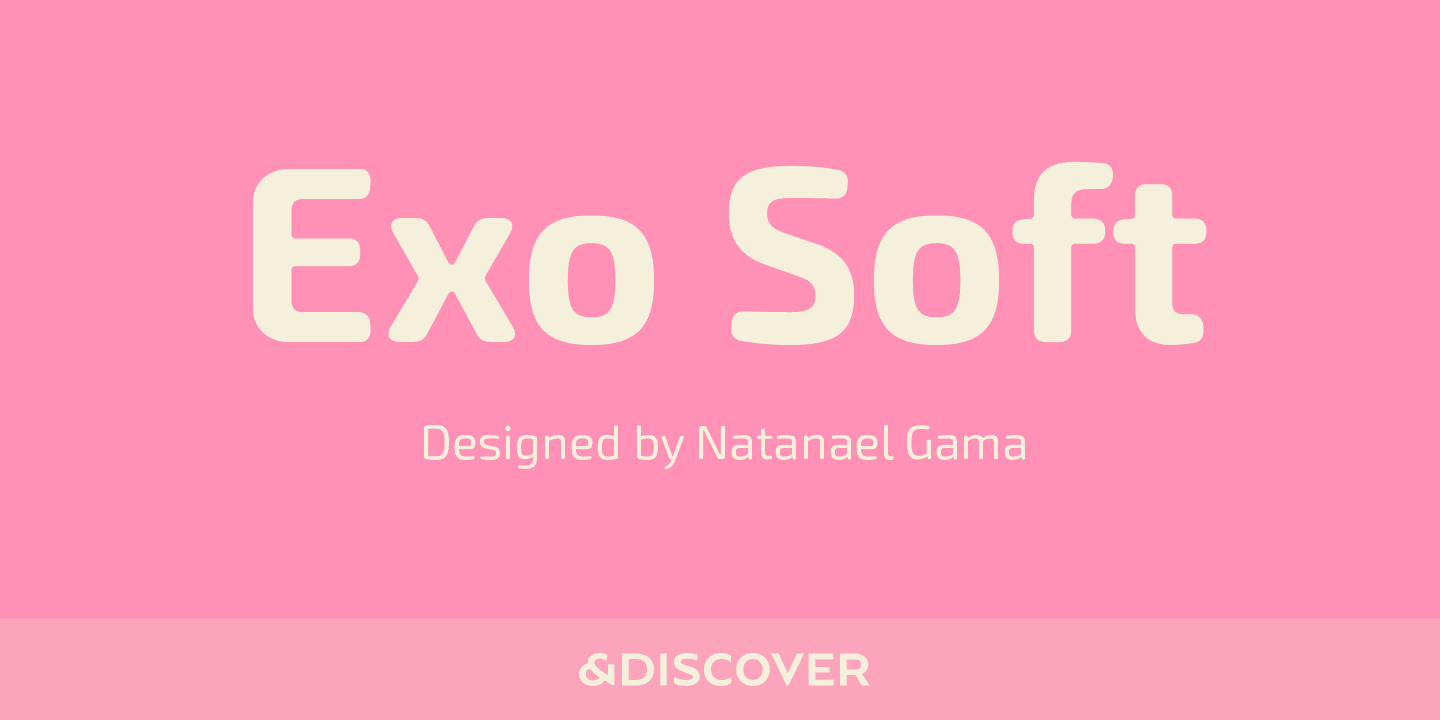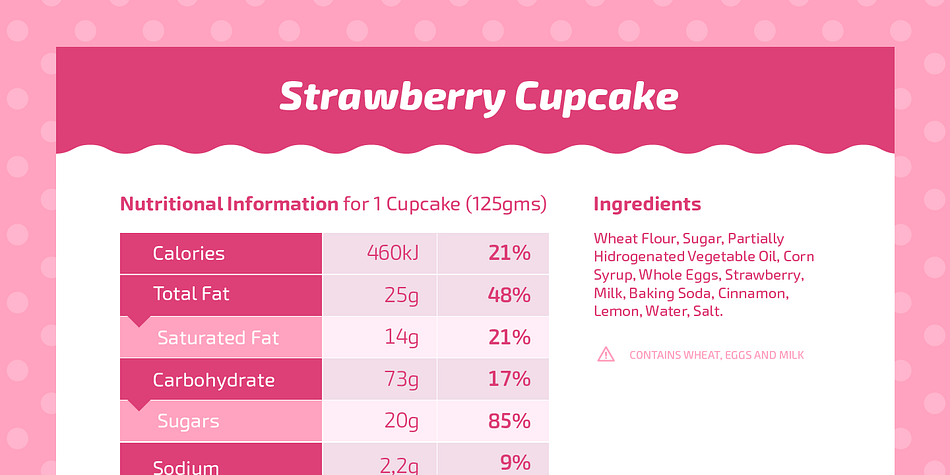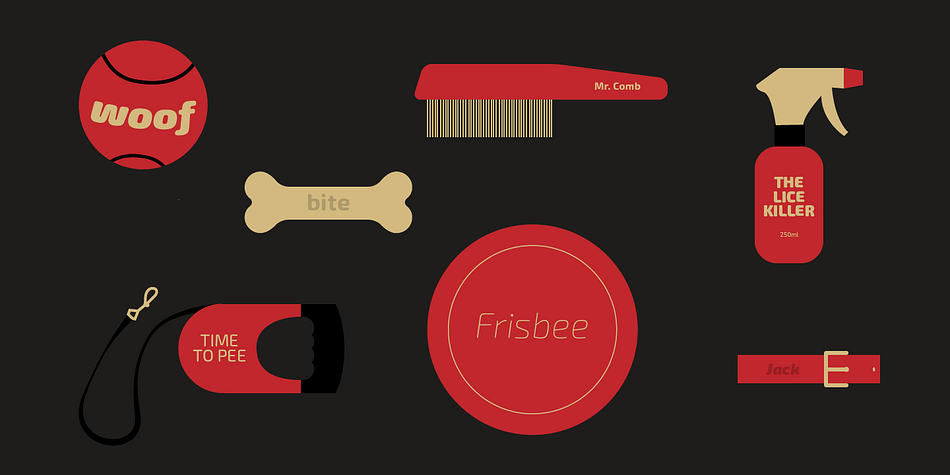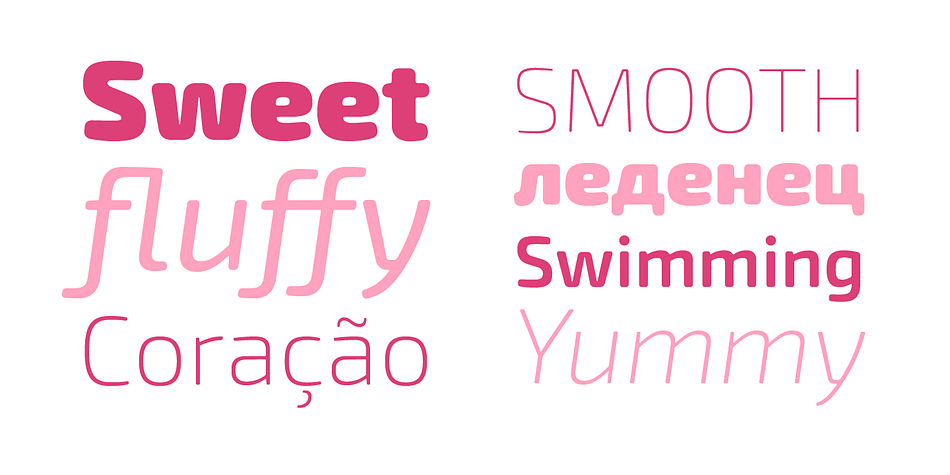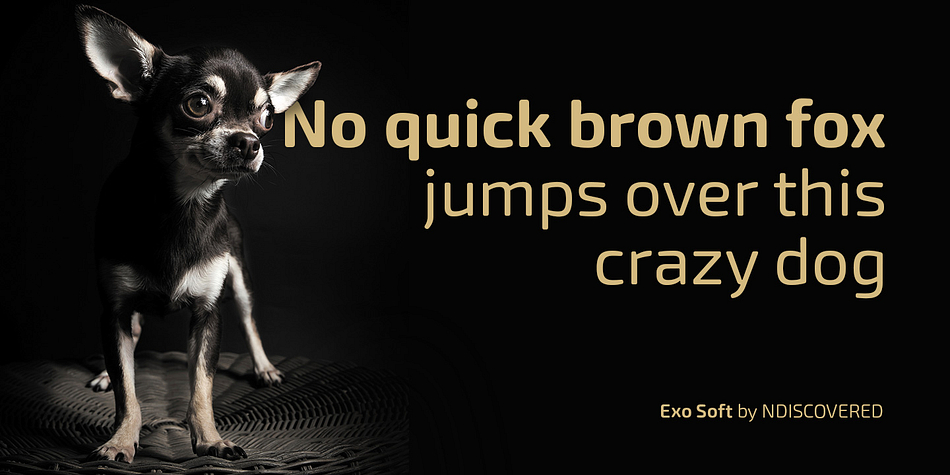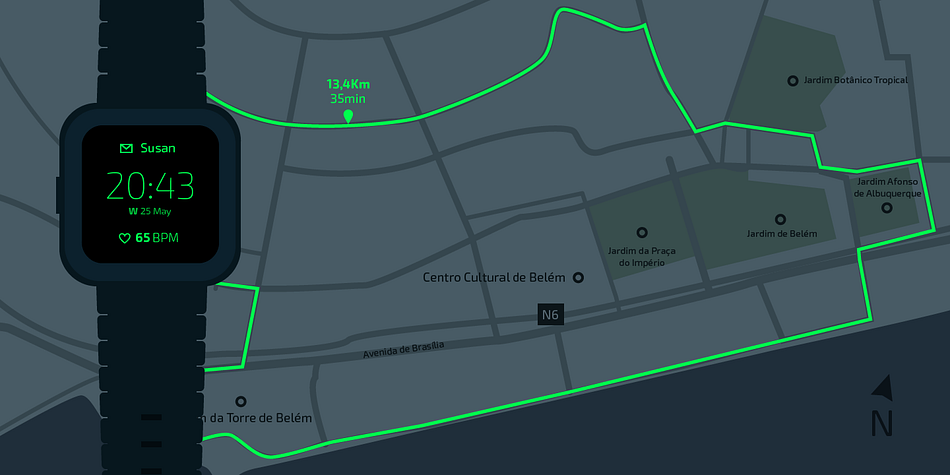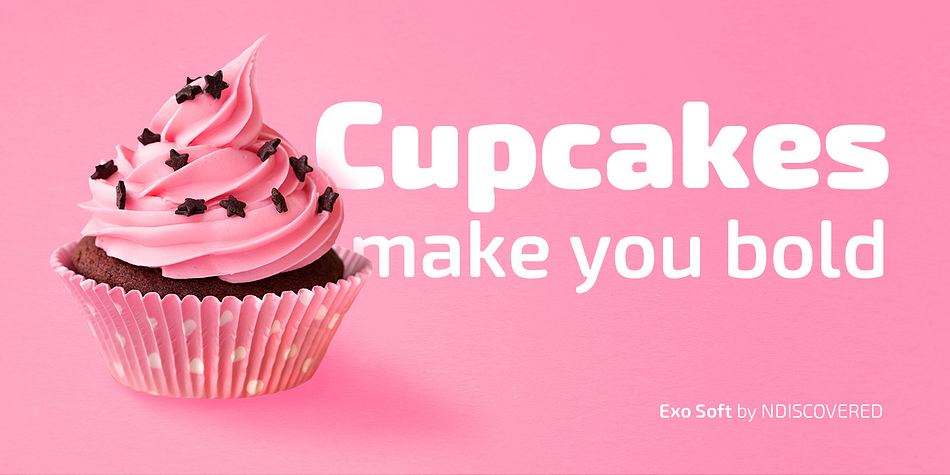
Exo Soft
Exo Soft is a display sans and sans serif font family. This typeface has eighteen styles and was published by Polimateria.
Exo Soft.
Technology meets humanity.
The geometric design got organic with carefully crafted smoothed edges.
Exo Soft is a contemporary sans-serif font with a warm and humane feeling.
It has an extended language support (both in Latin and Cyrillic) and an handful set of Opentype features.
The 9 weights plus correspondent italics give Exo Soft a huge versatility.
Because aesthetics are not everything Exo Soft was fine tuned in order to perform well both in screen and in print.
The large x-height and open counters makes it function well even on small font sizes but the full potential of Exo Soft will be seen on headlines, branding and advertising.
Displaying the beauty and characteristics of the Exo Soft font family.
Exo Soft. Technology meets humanity. The geometric design got organic with carefully crafted smoothed edges.
Exo Soft is a contemporary sans-serif font with a warm and humane feeling. It has an extended language support (both in Latin and Cyrillic) and an handful set of Opentype features. The 9 weights plus correspondent italics give Exo Soft a huge versatility.
Because aesthetics are not everything Exo Soft was fine tuned in order to perform well both in screen and in print. The large x-height and open counters makes it function well even on small font sizes but the full potential of Exo Soft will be seen on headlines, branding and advertising.